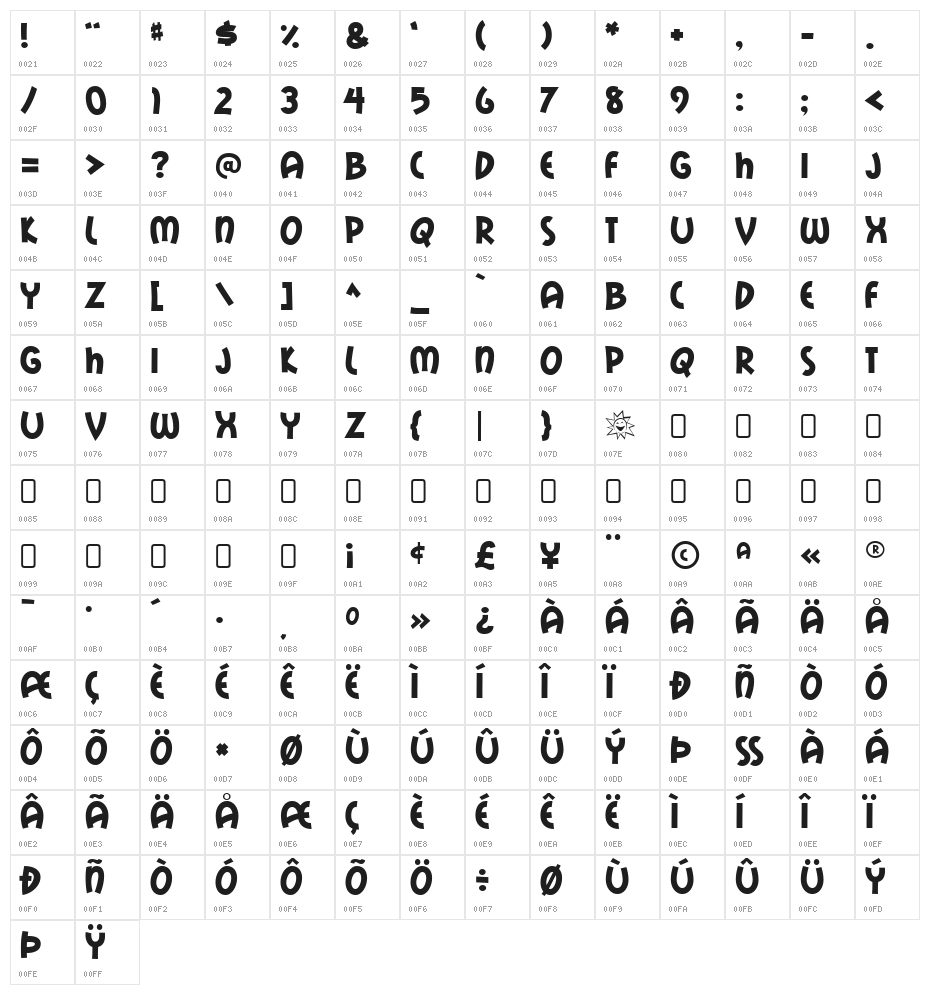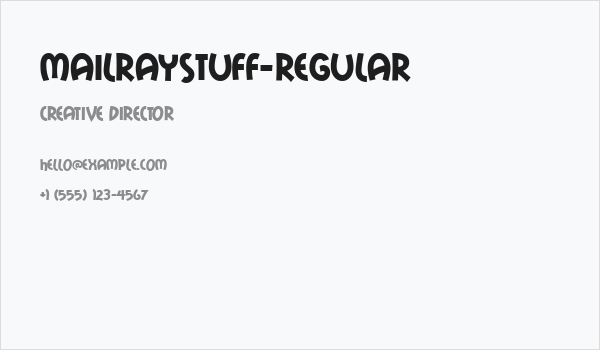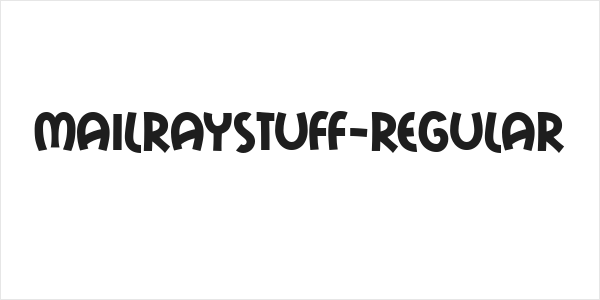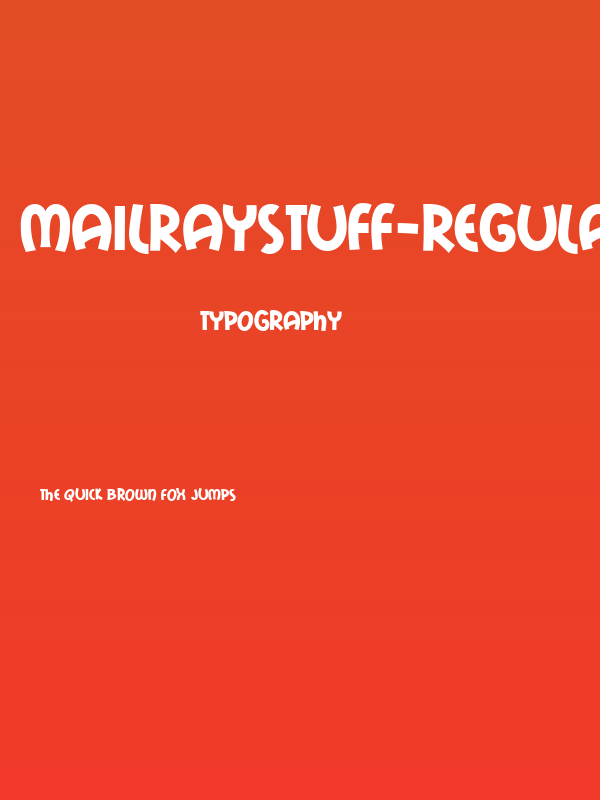
MailRayStuff-Regular Font
MailRayStuff-Regular Description
This font features bold, rounded characters with a playful and dynamic style. The letters have a consistent thickness, giving them a strong presence. The curves are smooth and exaggerated, adding a whimsical touch. The numbers and special characters maintain the same boldness and rounded edges, ensuring uniformity across the typeface. This font is highly legible and stands out due to its unique design, making it suitable for eye-catching displays. The overall look is modern yet playful, with a hint of retro influence, making it versatile for various creative applications.
Overall StylePlayful, Modern, Retro
Proposed ProjectsIdeal for children's books, playful branding, posters, and creative advertising.